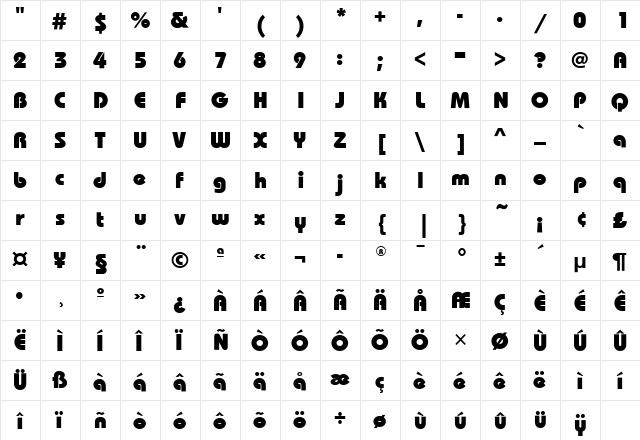
BauhausHvyITC Medium Font Preview
BauhausHvyITC Medium
BauhausHvyITC Medium Font Details
| Foundry | E+F Designstudio. ITC Bauhaus is a registered trademark of International Typeface Corporation |
Design Context for BauhausHvyITC Typeface
BauhausHvyITC is a composed and adaptable typeface that performs quietly and consistently across a wide range of design contexts.